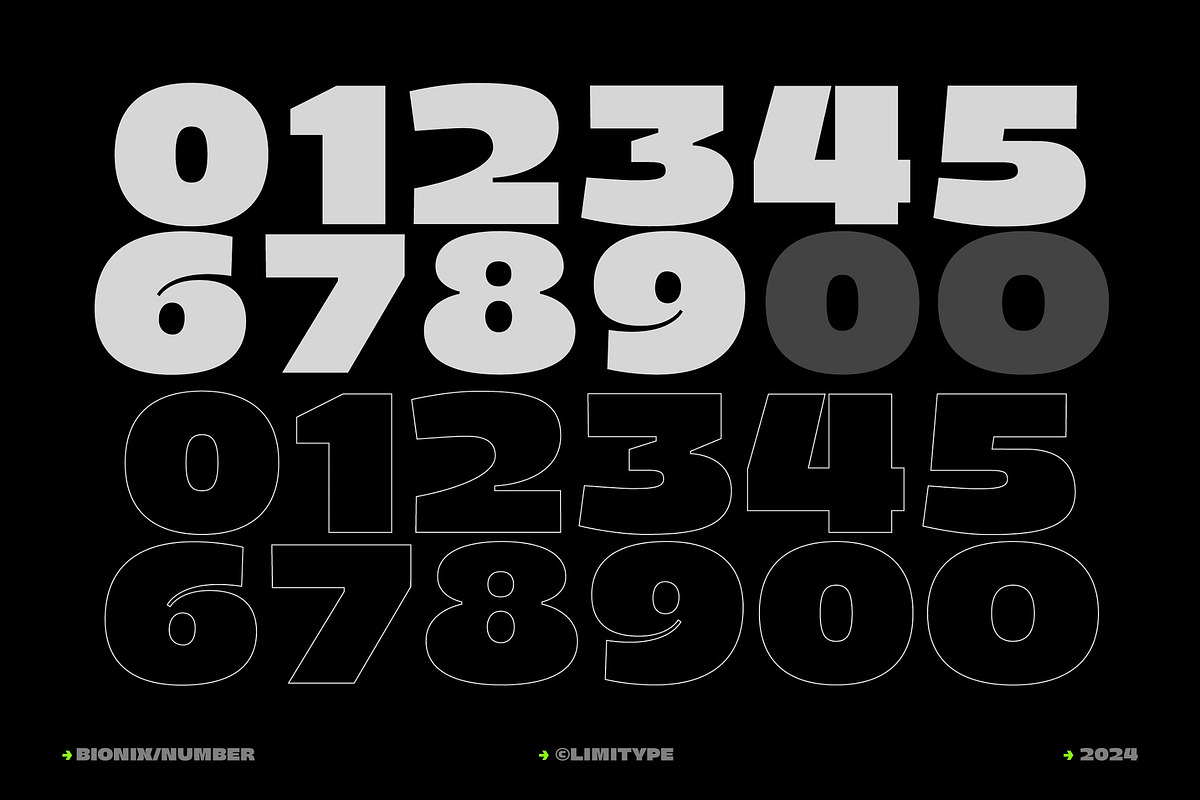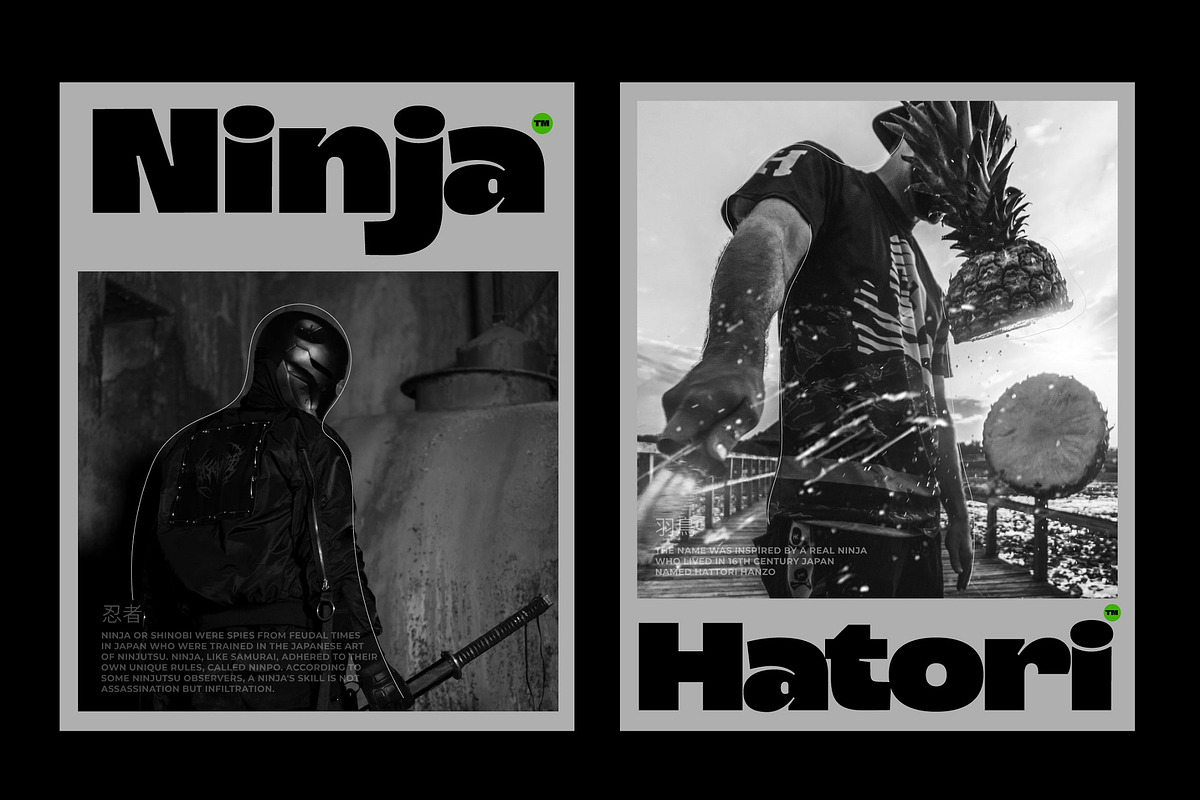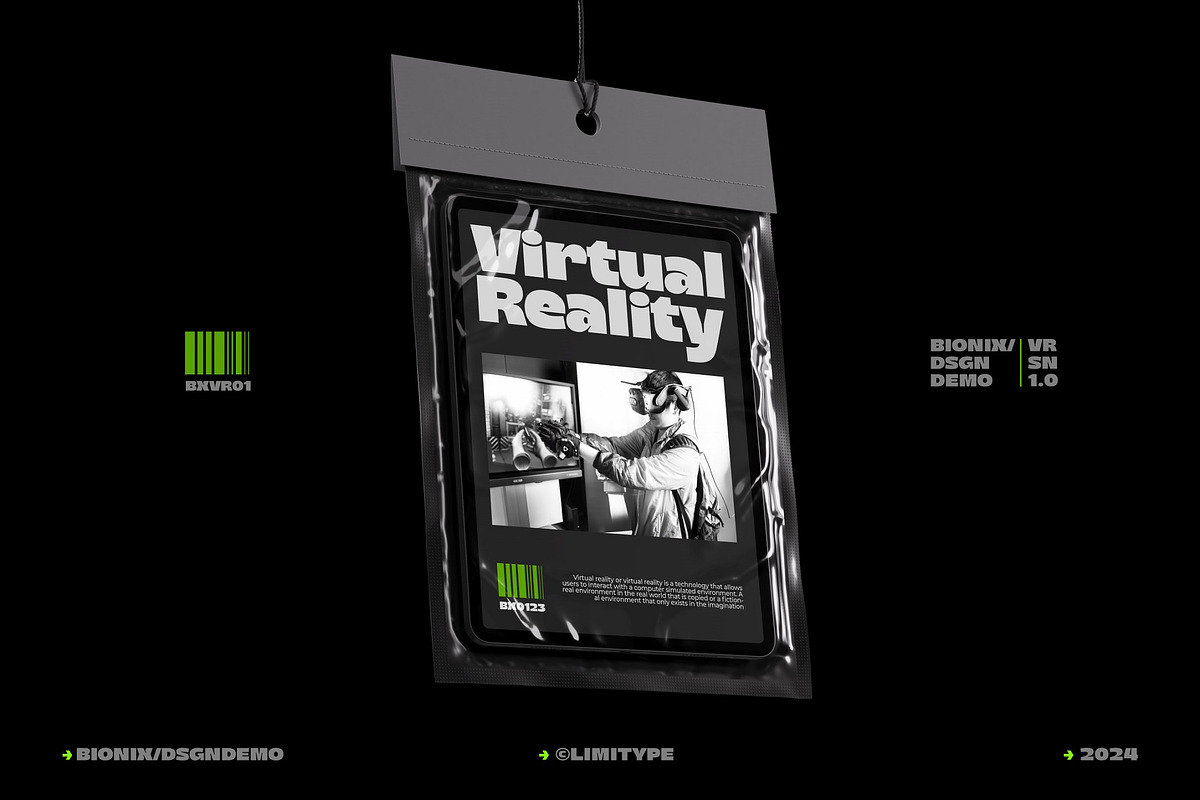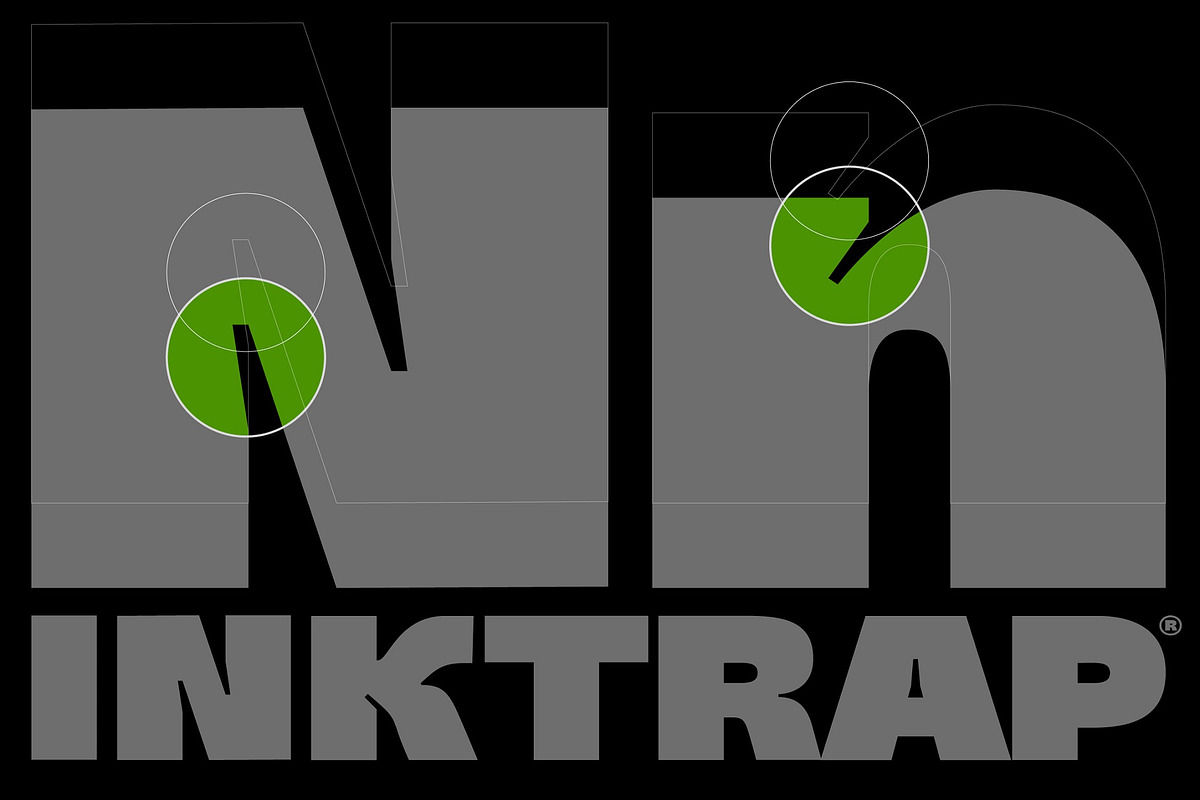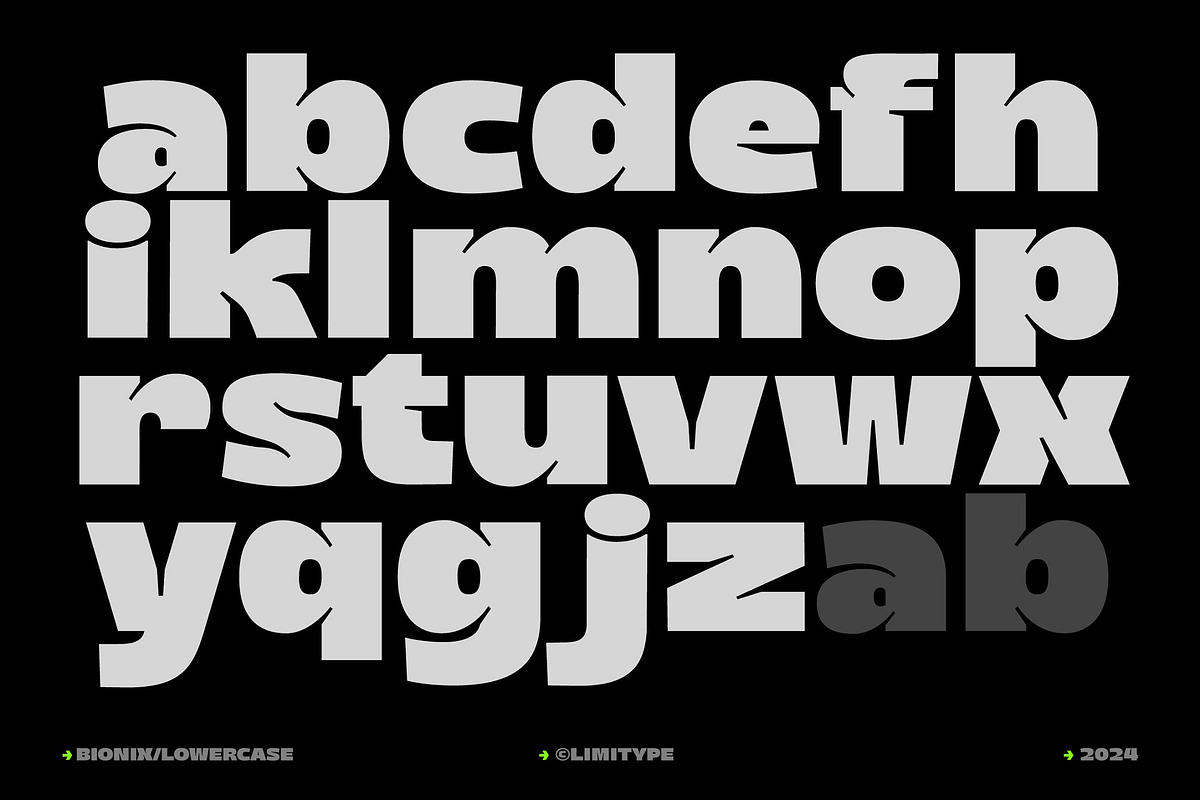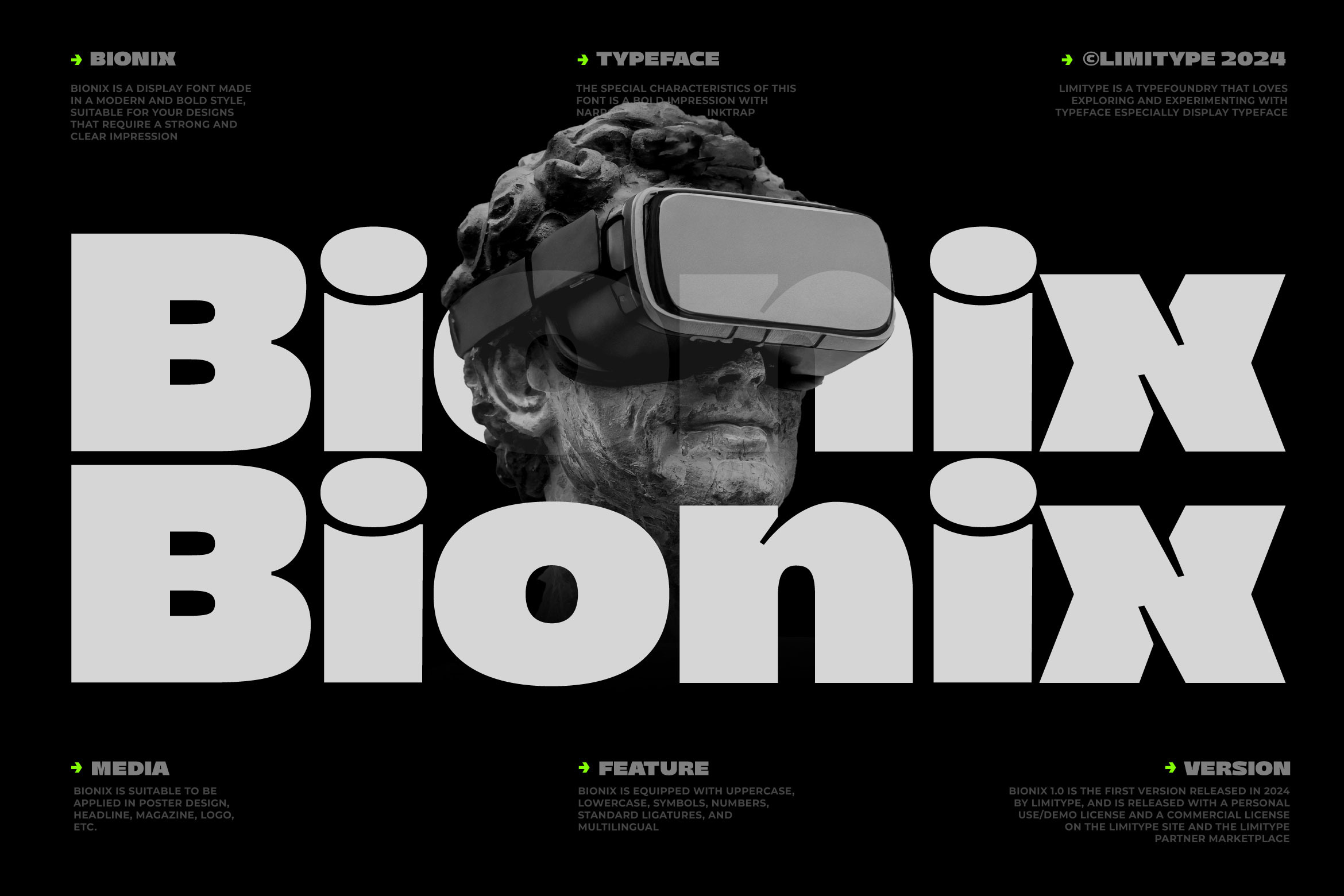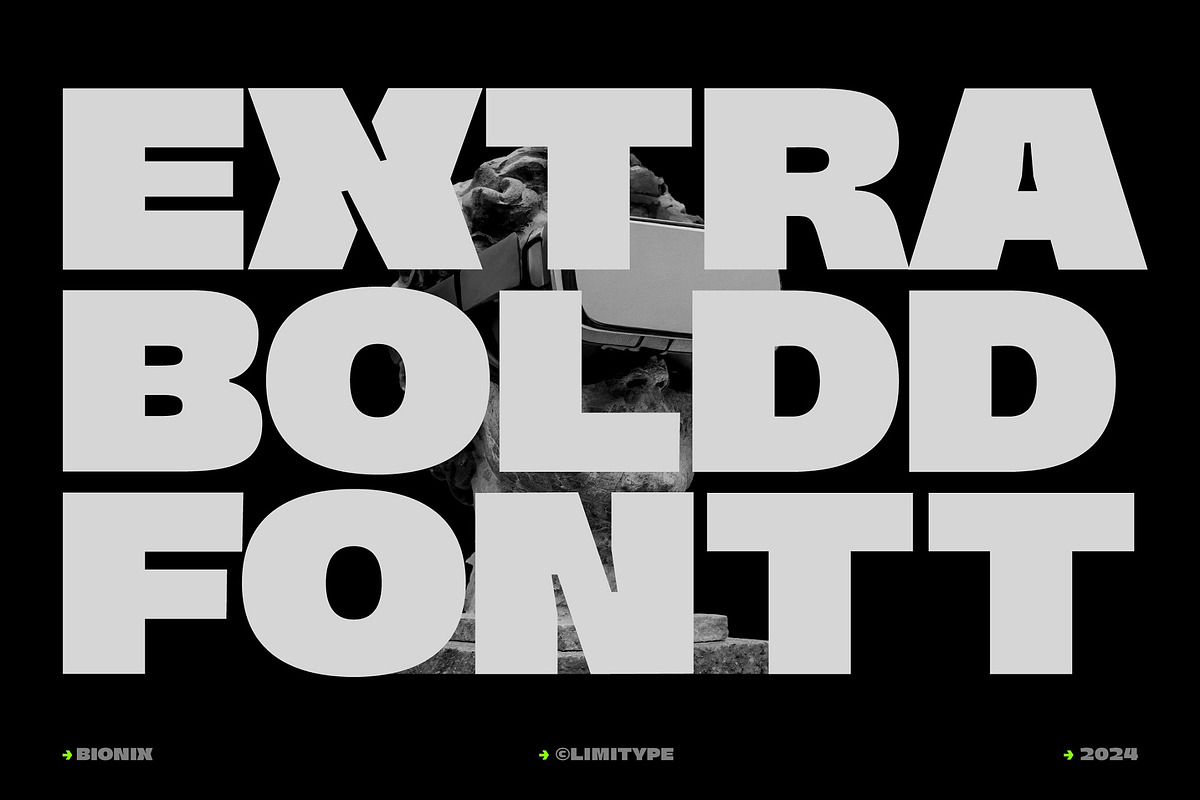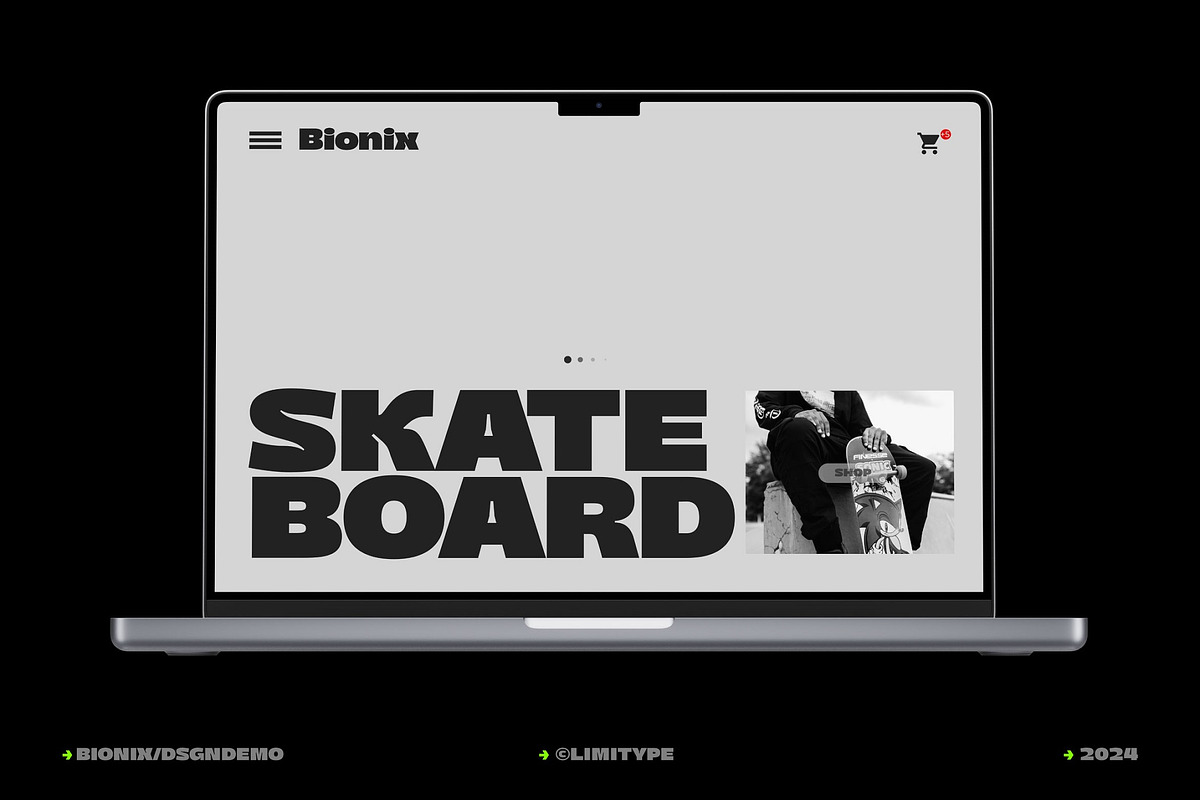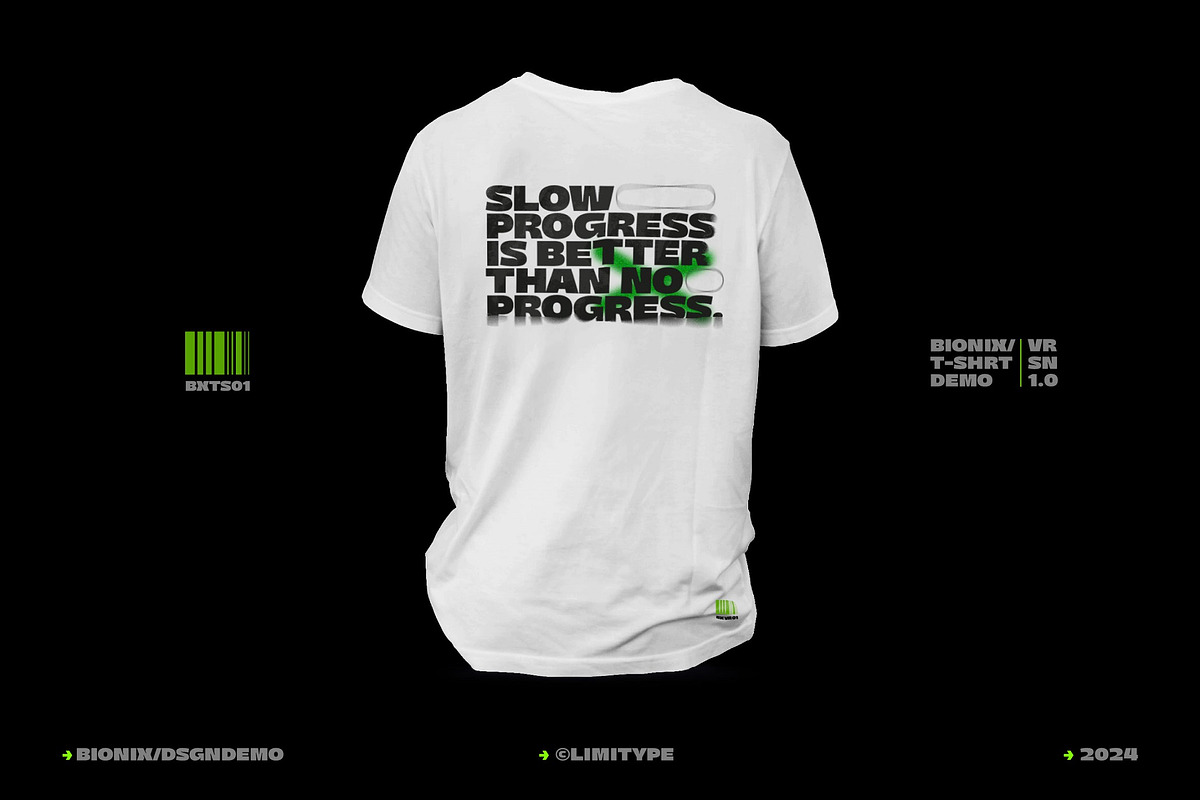
Bionix - Futuristic Bold Font
Bionix is a sans display font made with a bold and modern impression, equipped with inktrap which adds personality to this font. This font is suitable for designs that require a strong and clear impression when used in media but is still modern and fun. Bionix is suitable for headlines, posters, banners, logos, etc